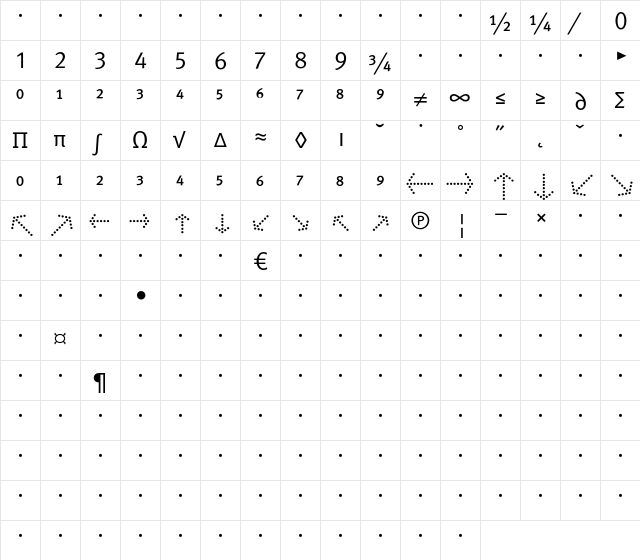
MetaNormalCyr-CapsExpert Regular
Design Context for MetaNormalCyr-CapsExpert Typeface
MetaNormalCyr-CapsExpert offers clean, dependable letterforms without strong stylistic allegiance, making it a practical choice for designers who need flexibility.